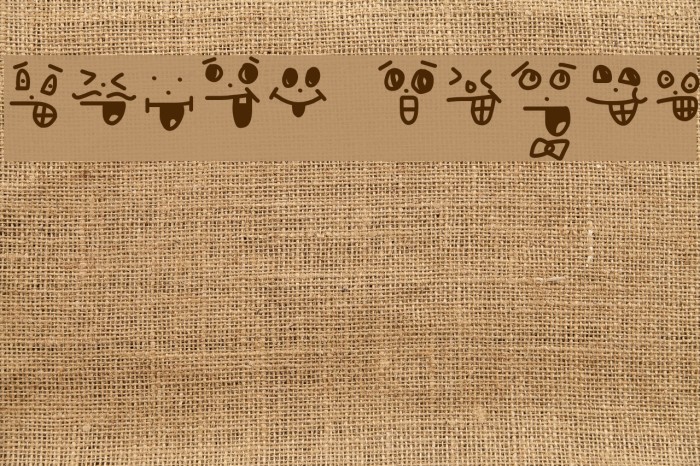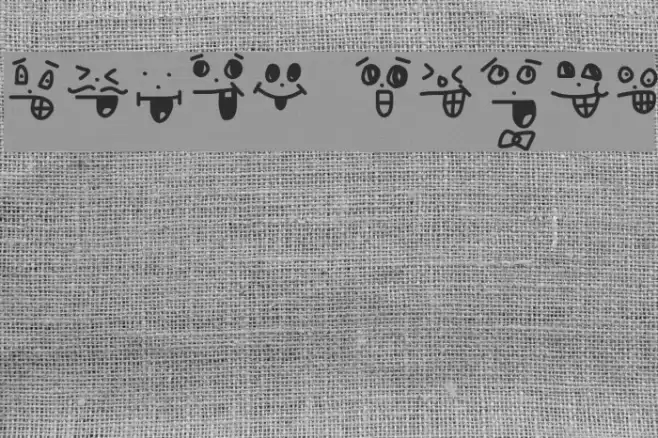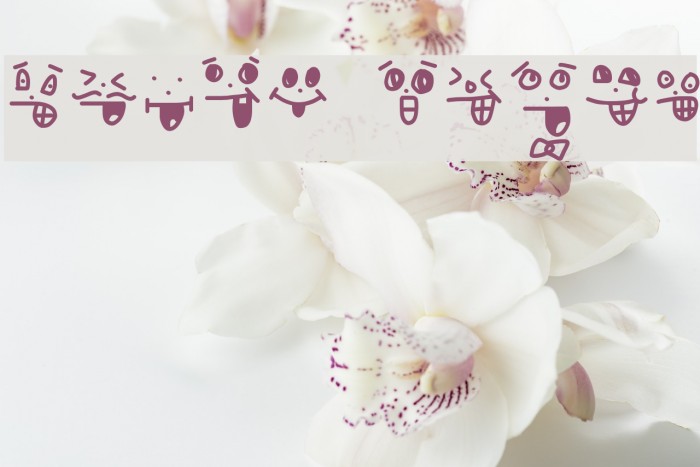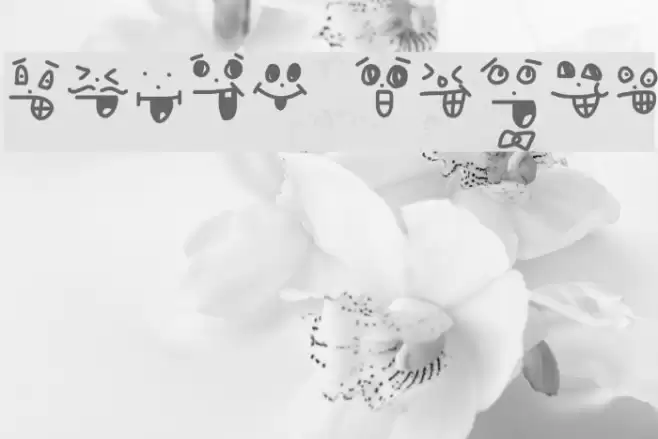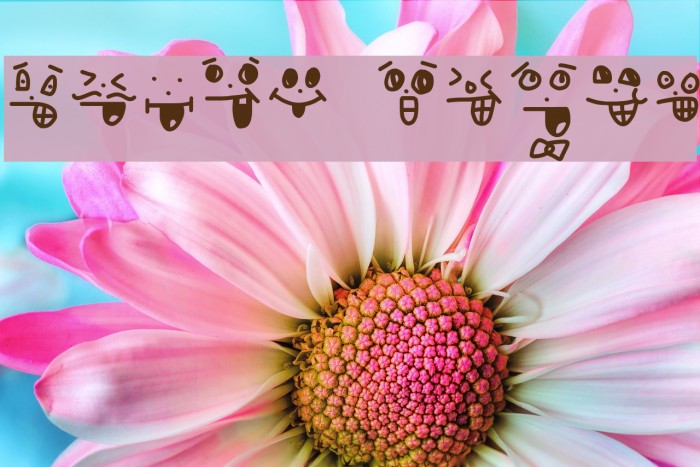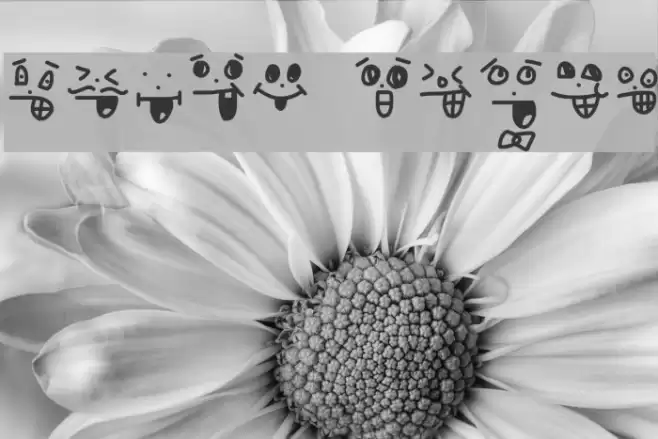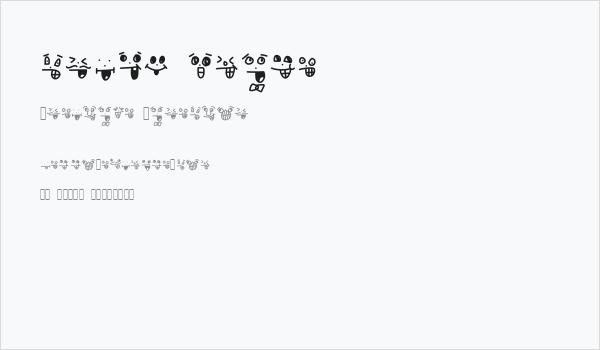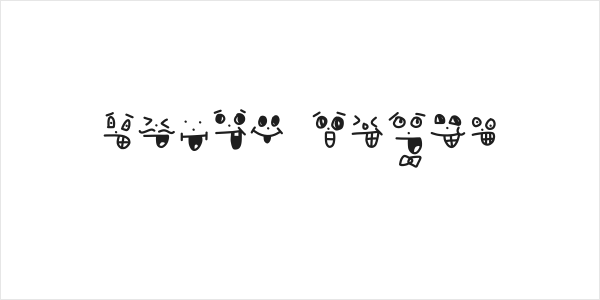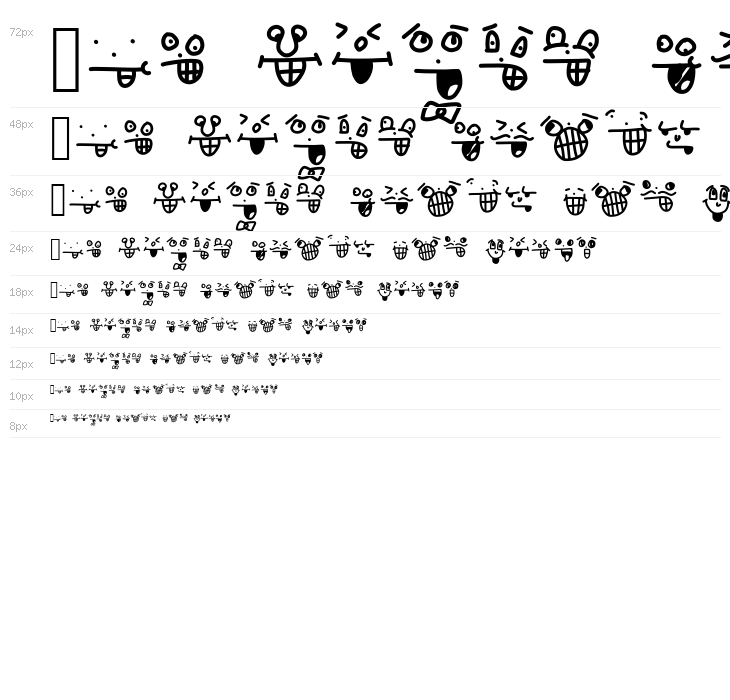
crazy smile Font
crazy smile Description
This font is a playful and whimsical collection of characters, each designed with unique and exaggerated facial expressions. The characters are cartoon-like, with features such as wide eyes, crooked smiles, and quirky details that give them a lively and humorous appearance. The style is highly decorative, focusing on entertainment and visual impact rather than readability. Each letter and symbol is transformed into a distinct character, making it ideal for projects that require a fun and engaging visual element.
| Use Case | Logos, Posters, Invitations |
| Proposed Projects | Ideal for children's books, comic strips, playful branding, and party invitations. |